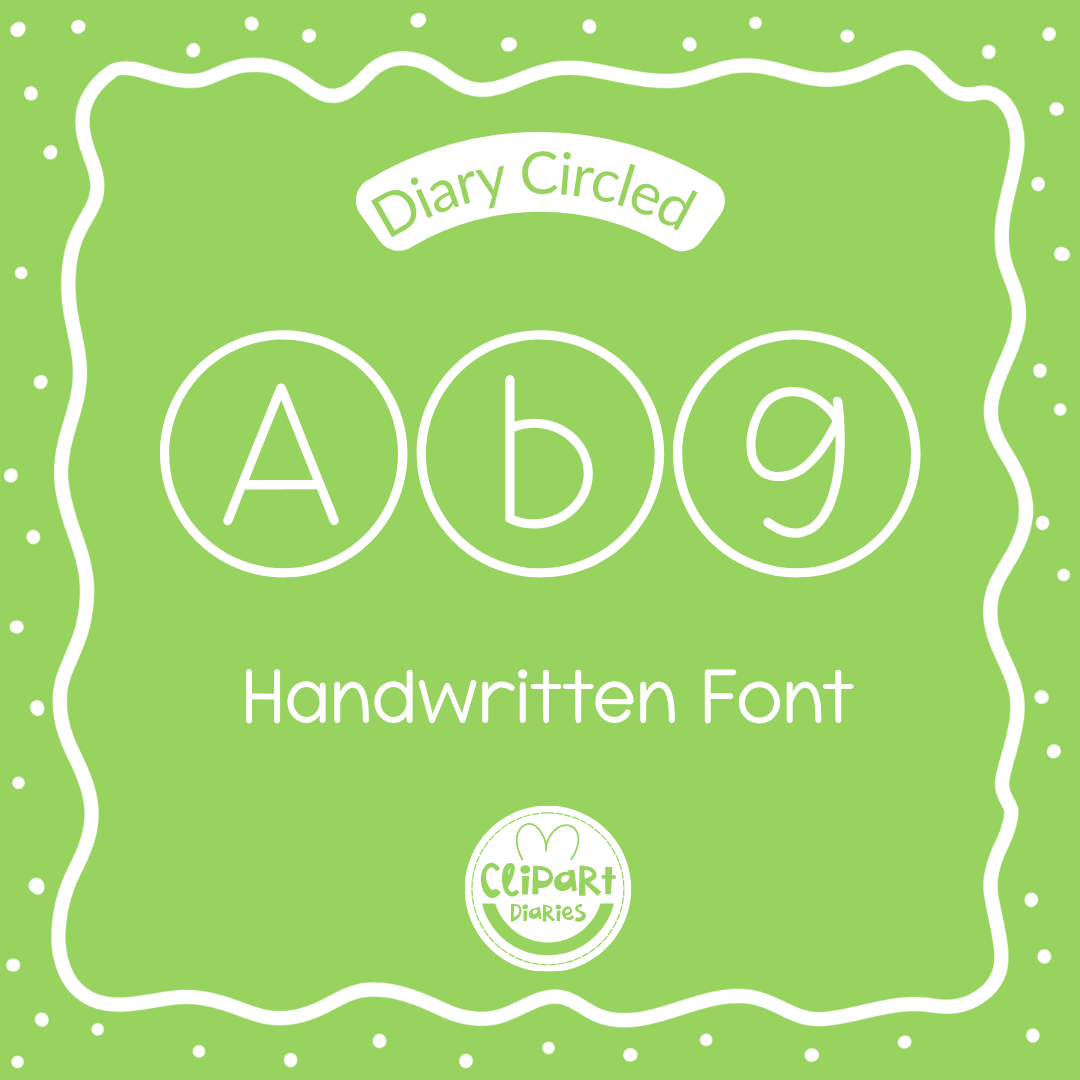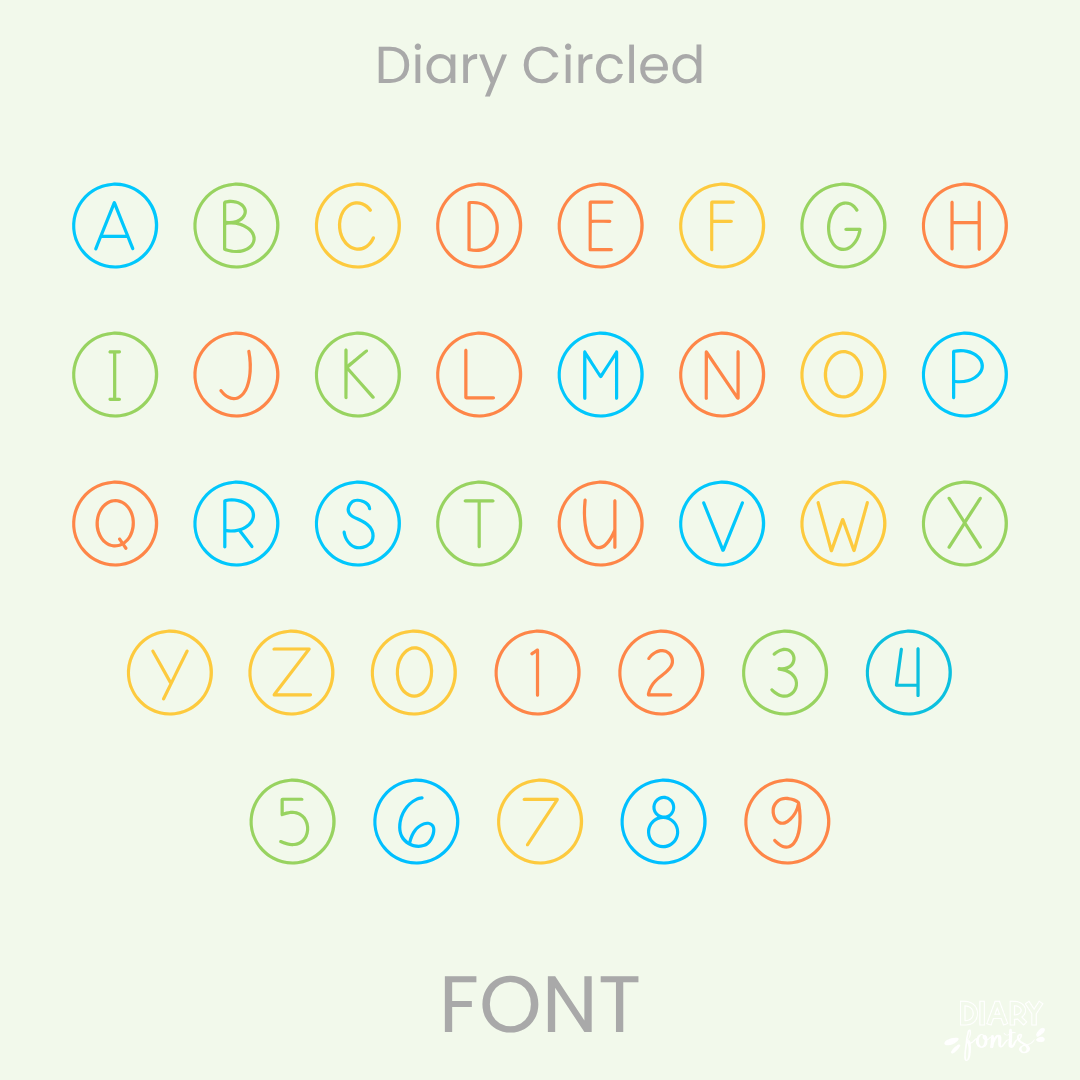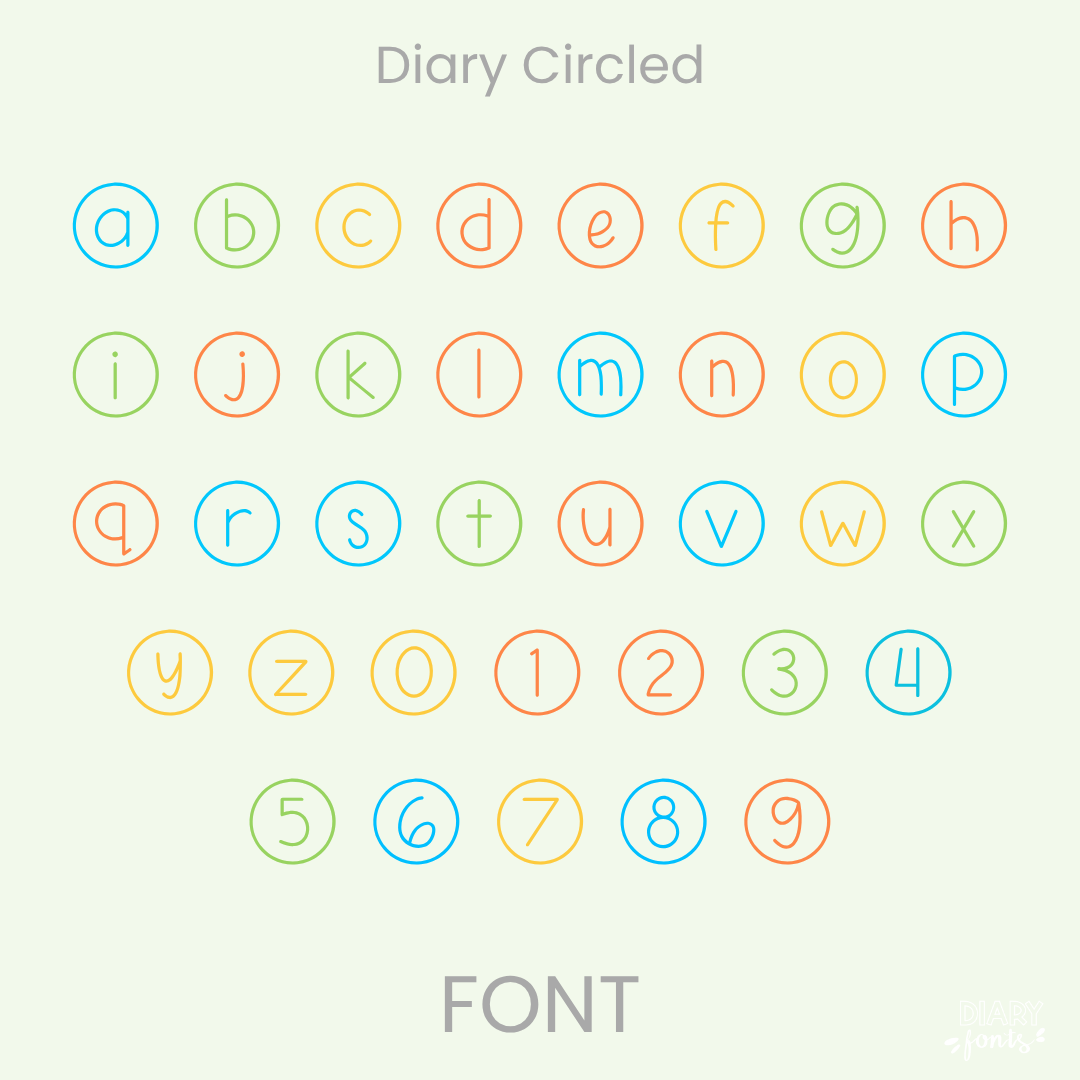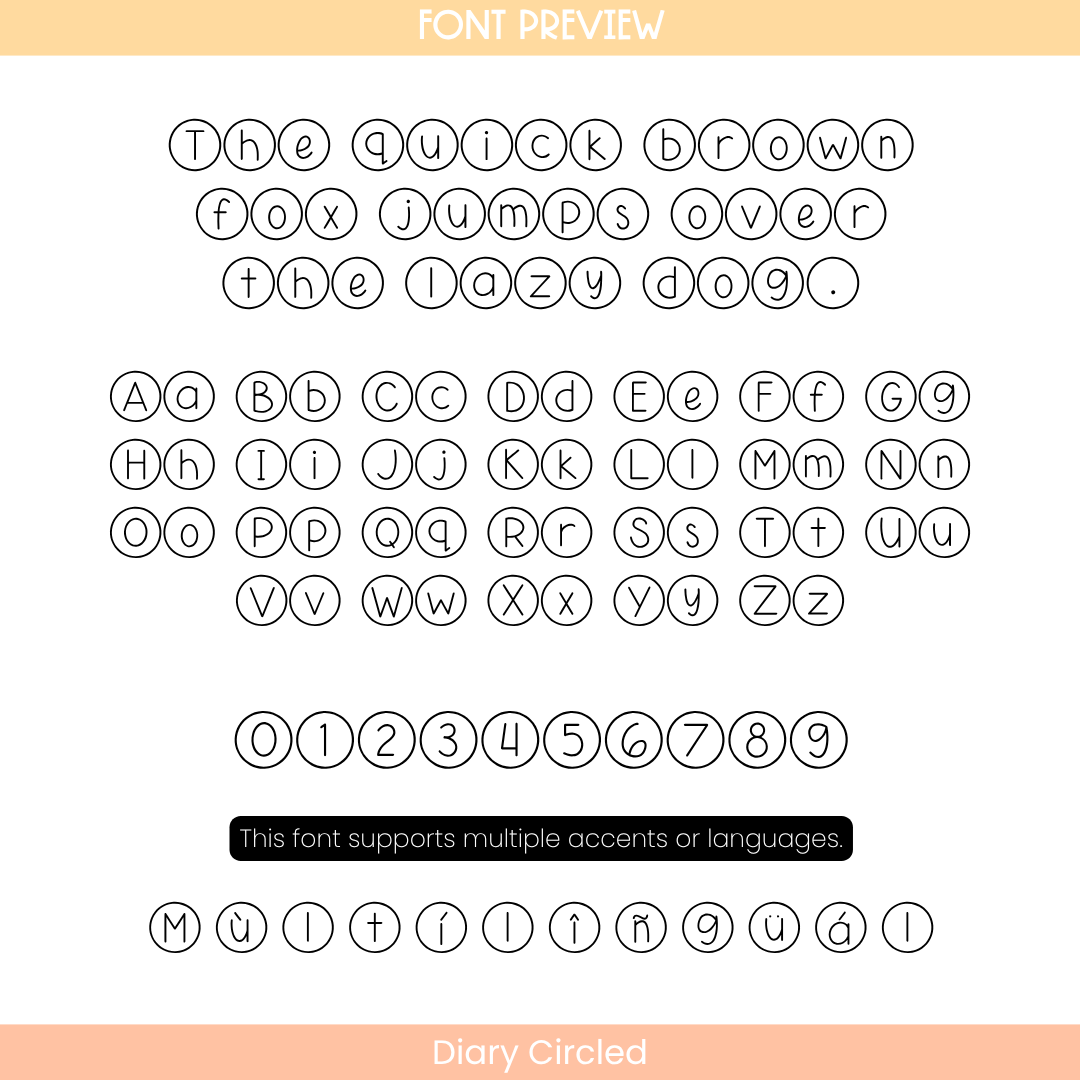
If you want to give your projects a cheerful and friendly look, Diary Circled is an excellent choice. It features smooth, rounded characters inside playful circles that mimic a unique token or button style while remaining neat and handwritten. This makes it highly legible for students while still feeling playful. It is especially effective for bold headers, classroom labels, and primary school resources. The font includes a full set of uppercase and lowercase letters, numbers, and multiple accents to support different languages. It is ready for use in Canva, MS Office, and Adobe Apps, and it works perfectly with iPad apps like GoodNotes and Procreate. Whether for personal classroom use or commercial resources, this font adds a soft and approachable aesthetic to your work.